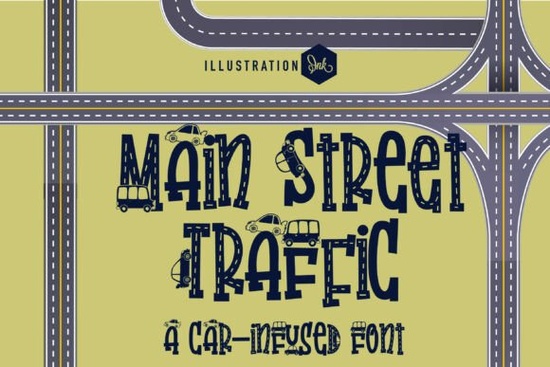
When it comes to adding a playful and imaginative touch to your designs, the Main Street Traffic Font is a fantastic choice. This novelty display typeface transforms ordinary letterforms into charming roadways, complete with lane dividers, crosshatches, and cute cartoon vehicles. Whether you're designing educational posters, playmat graphics, or social media campaigns, Main Street TRAFFIC can bring a unique and delightful element to your projects.
Why Choose Main Street Traffic Font for Your Creative Projects?
Main Street TRAFFIC is not just any font; it's a creative journey that adds a whimsical and engaging touch to your designs. The tall, blocky hand-drawn letters are transformed into dual-lane asphalt roadways, making it perfect for projects that need a playful and eye-catching appeal. This font is ideal for independent children’s educational materials, custom bedroom playmats, and even transport-themed birthday party invitations.
How Can You Use Main Street Traffic Font Creatively?
The versatility of Main Street TRAFFIC makes it a go-to choice for a variety of creative projects. Here are some ideas on how you can use this font creatively:
- Educational Posters: Add a fun and engaging element to educational posters with the playful roadways and cartoon vehicles.
- Playmat Graphics: Design custom playmats for kids' rooms, turning the floor into an interactive and imaginative space.
- Youth Apparel Labels: Create unique and appealing labels for boutique youth apparel, adding a special touch to clothing and accessories.
- Birthday Invitations: Craft memorable and playful invitations for transport-themed birthday parties, making the event more exciting for kids.
- Social Media Campaigns: Use Main Street TRAFFIC in your social media graphics to catch the eye and add a playful twist to your content.
What Makes Main Street Traffic Font Stand Out?
One of the key features that sets Main Street TRAFFIC apart is its imaginative design. The font incorporates segmented white lane dividers, structural crosshatches, and adorable cartoon compact cars, buses, and delivery vans. These elements make the font visually appealing and engaging, perfect for projects that need a touch of creativity and fun.
Is Main Street Traffic Font Suitable for All Types of Designs?
While Main Street TRAFFIC is incredibly versatile, it's best suited for projects that benefit from a playful and imaginative touch. It works exceptionally well for children's educational materials, custom playmats, and themed party invitations. For more formal or minimalist designs, you might want to consider other options like Lion Crunch or Goodwin.
How Does Main Street Traffic Font Compare to Other Display Fonts?
Main Street TRAFFIC stands out with its unique and playful design. If you're looking for a similar but slightly different style, you might also consider Kafu or Digital Match. Each of these fonts offers its own distinctive features, so choosing the right one depends on the specific look and feel you want for your project.
Practical Tips for Using Main Street Traffic Font
To get the most out of Main Street TRAFFIC, here are some practical tips:
- Test Different Sizes: Experiment with various font sizes to see what works best for your design. Smaller sizes can be used for detailed elements, while larger sizes can make a bold statement.
- Combine with Simple Fonts: Pair Main Street TRAFFIC with simpler, more readable fonts to create a balanced and visually appealing design.
- Use for Titles and Headings: This font is perfect for titles and headings, where you want to grab attention and add a playful touch.
- Consider the Context: Ensure the font fits the context of your project. For example, it works well for children's materials but may not be suitable for formal or professional documents.
By following these tips, you can effectively incorporate Main Street TRAFFIC into your creative projects and make them stand out with a delightful and imaginative touch.